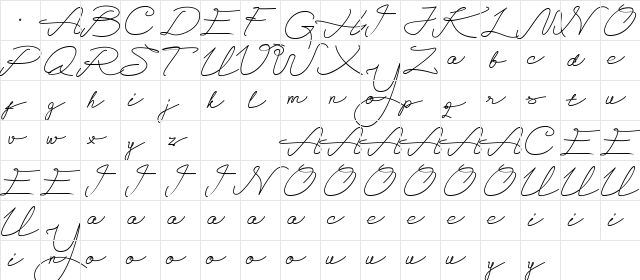
Alegant Script Regular
Design Context for Alegant Script Typeface
Alegant Script brings a calligraphic fluidity to the page — its connecting strokes and expressive curves give it an unmistakably human quality.
Font Pairing: Combine Alegant Script with a simple geometric sans for maximum contrast — the tension between flowing curves and clean structure is a classic typographic pairing.
Pro Tip: Pair Alegant Script with a clean sans-serif for supporting text. The contrast between fluid script and geometric structure creates an elegant typographic hierarchy.